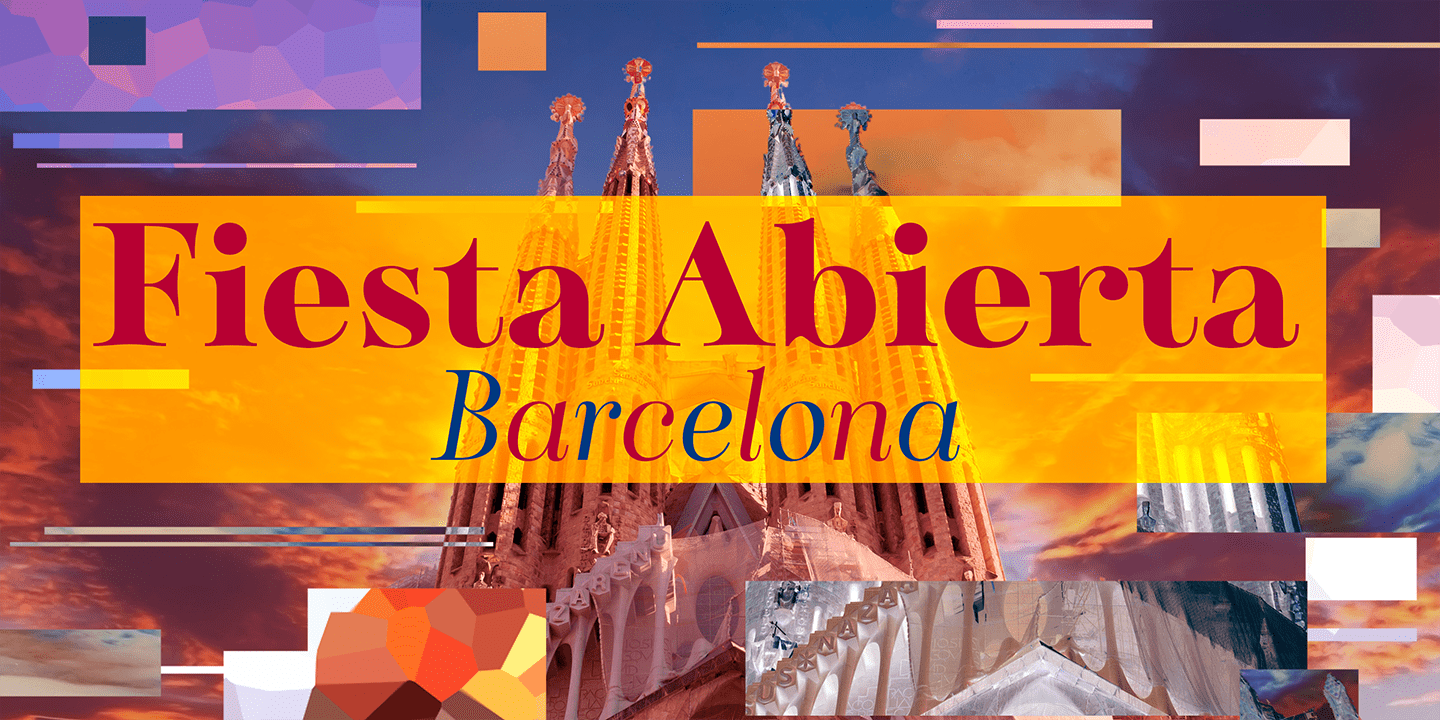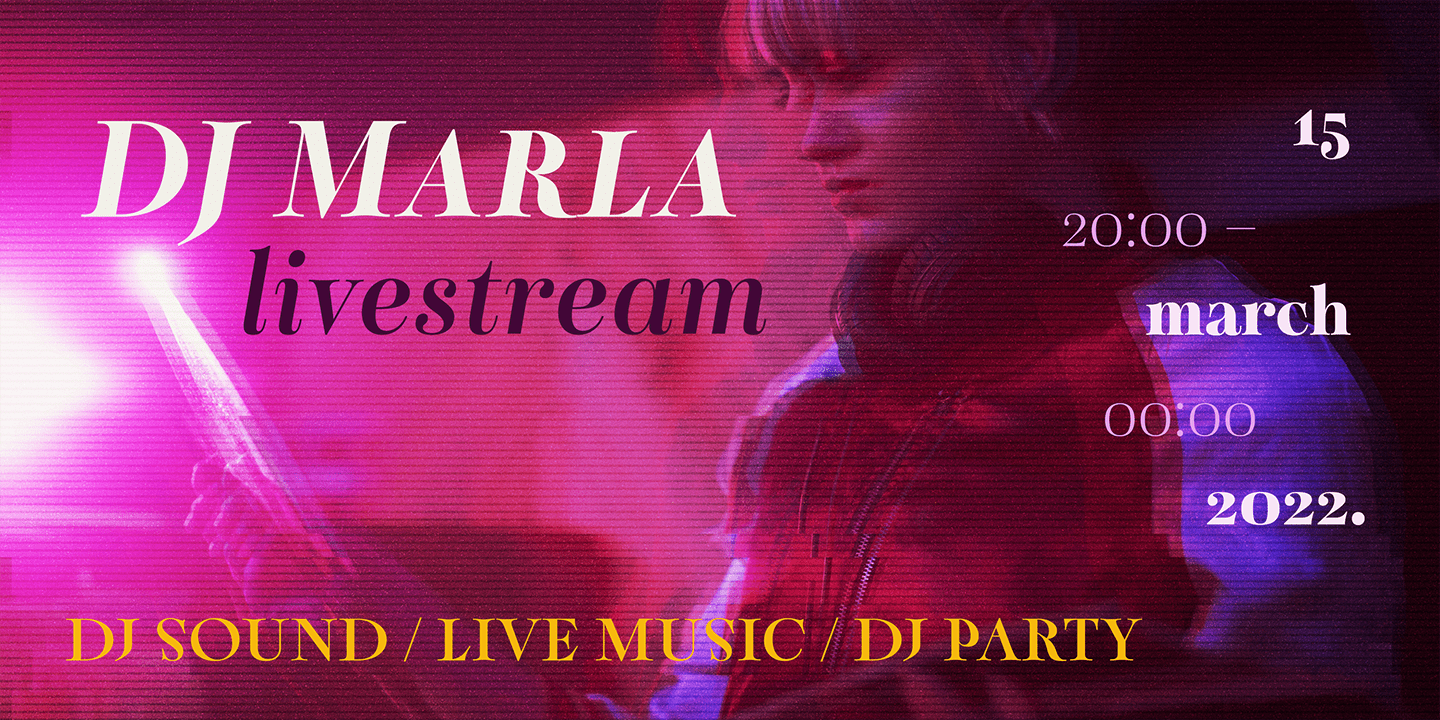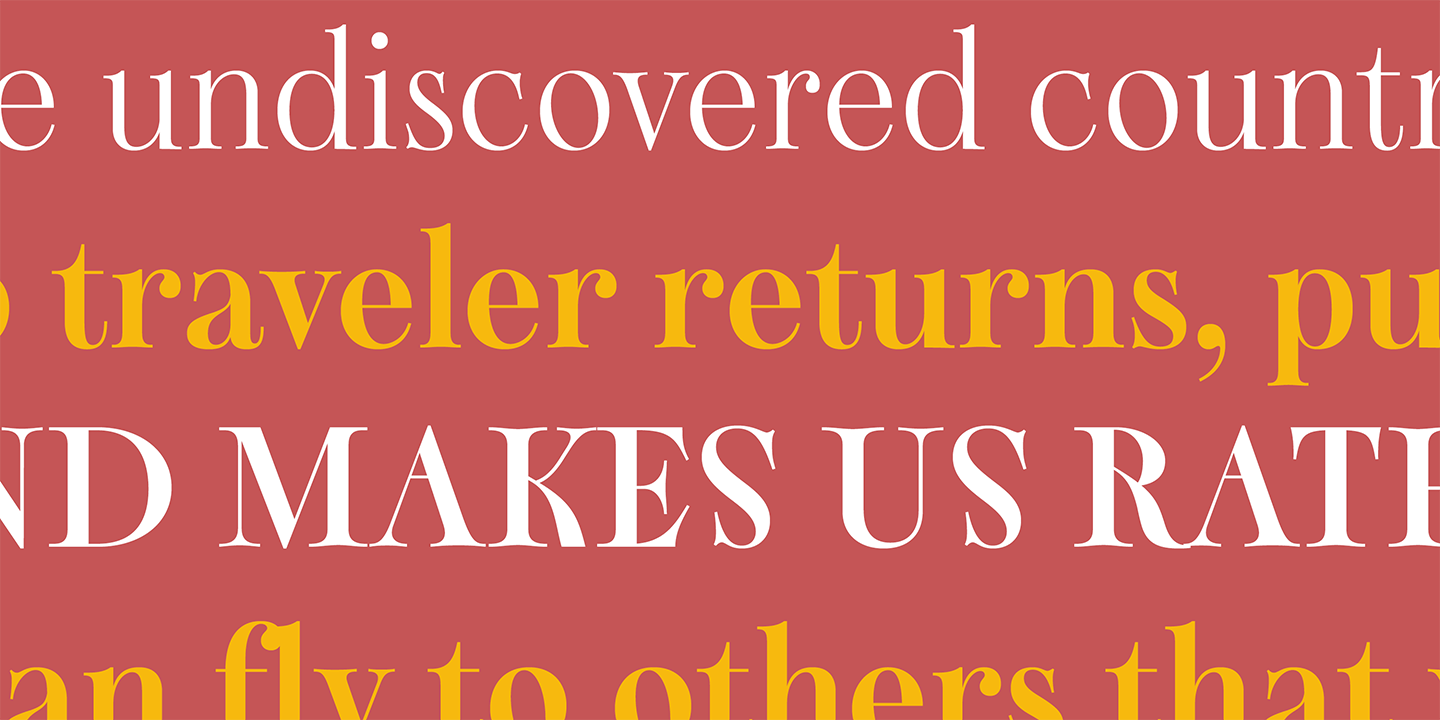
About Sociato
Introducing Sociato: a typographic trendsetter. It\’s a quirky font that perfectly blends modernity and antiquity. The French Revolution was a period of uncompromising innovation in art and fashion, with celebrity artists, notably Jacques Louis David,…